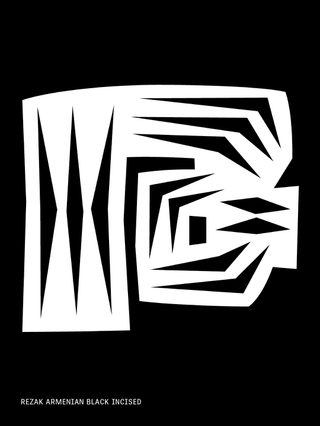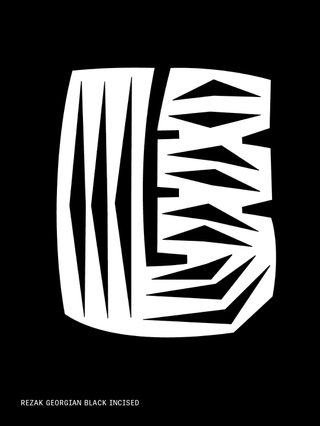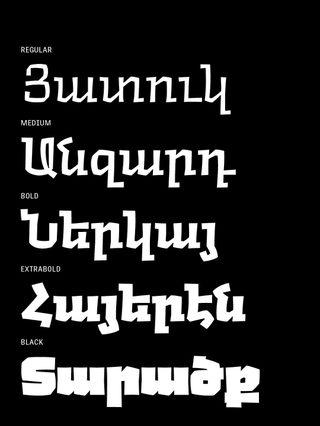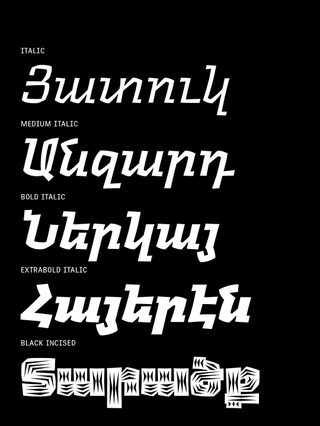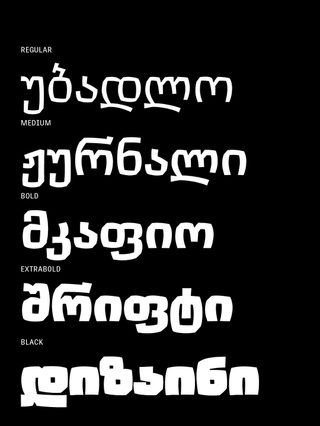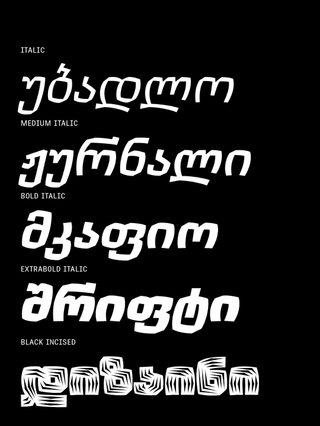
Sneak peek: Rezak in Armenian and Georgian
Anya Danilova’s acclaimed type family adds support for two of the Caucasus’ writing systems, in addition to Latin and Cyrillic
The release of Anya Danilova’s Rezak Armenian and Rezak Georgian is a few days away, and TypeTogether is happy to provide a preview of what we can look forward to. The beauty of Anya Danilova’s design for Rezak is in its seeming simplicity; on closer look its rough-hewn look shows a remarkably wide range of expression. This careful logic is now extended to the Armenian and Georgian writing systems, making for a highly versatile multiscript family.
The Armenian and Georgian writing systems developed independently to suit the very different phonetic needs of two completely unrelated language families. In creating these two script variations of Rezak, Danilova pays great respect to the two scripts’ letterform logic, while also managing to provide consistency with the Latin and Cyrillic versions of her type family.
With the release of Rezak Armenian and Rezak Georgian, TypeTogether once again confirms its commitment to providing some of the world’s best multiscript typefaces. Stay tuned for the official release.